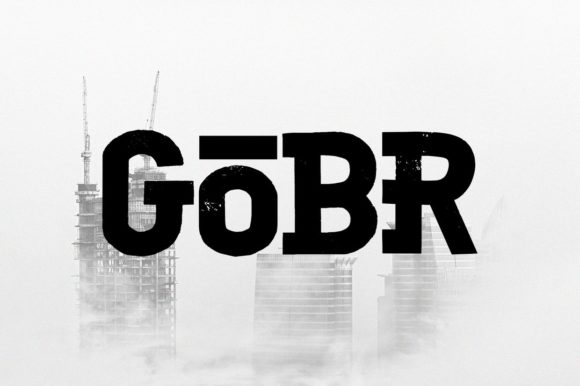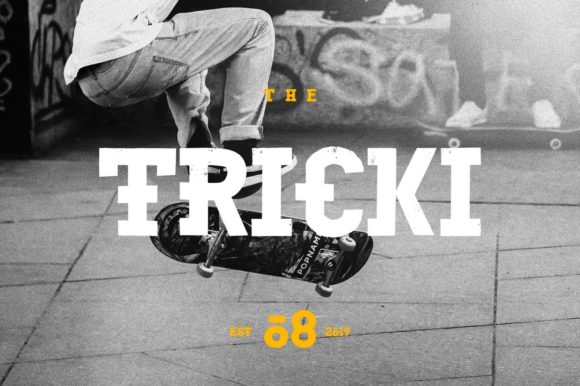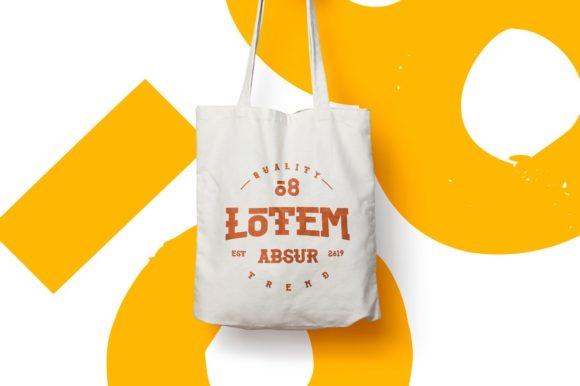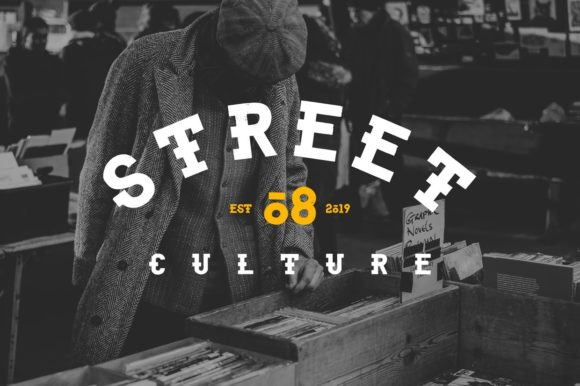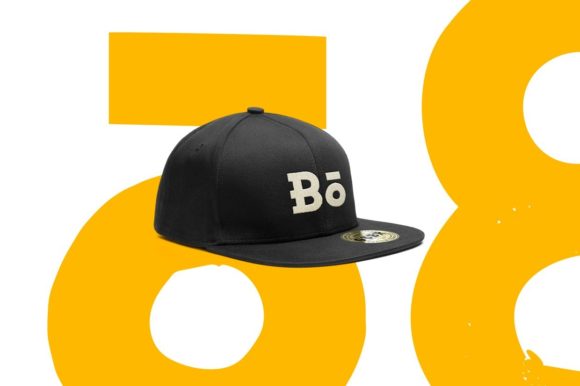
Gobr: A Bold and Solemn Slab Serif Font
Gobr is a bold and solemn slab serif font featuring a strong body with flexible, unsymmetrical arches. This font has a bit of noise, making it perfect for clothing brand designs with a street theme. Use it for projects related to street culture, skateboards, murals, hip hop, rap, and more.
Key Features of Gobr
- Bold Design: Offers a strong and confident look suitable for impactful designs.
- Slab Serif Structure: Features thick, rectangular serifs typical of slab serif fonts.
- Street Style: Ideal for designs that need a touch of urban culture.
- Unique Arches: Provides an unsymmetrical and dynamic appearance.
Ideal Uses for Gobr
Gobr’s unique characteristics make it particularly well-suited for:
- Logo design and branding
- Creative posters and advertisements
- Streetwear and apparel design
- Headlines and magazine layouts
- Book covers and title pages
- Web layouts and digital content
- Creative product packaging
When incorporating Gobr into your designs, consider these tips:
- Use for headlines or short blocks of text to showcase its bold style.
- Experiment with different sizes to highlight the font’s distinctive features.
- Consider pairing with simpler sans-serif fonts for body text to create contrast.
- Utilize its street style across various creative projects to enhance visual appeal.
Gobr is an excellent choice for designers looking to add a bold slab serif font to their typographic toolkit. Its ability to bring strength and style to various design projects makes it stand out in the world of typography. Whether you’re working on streetwear branding, creating layouts for magazines, or developing content that requires a touch of urban culture, Gobr offers the perfect blend of style and functionality.
Furthermore, Gobr’s unique design allows it to shine in various contexts. From vintage-inspired designs with a modern twist to more contemporary layouts that need a touch of uniqueness, this font can elevate your projects. Its striking yet functional style works particularly well in designs that require a thoughtful and engaging mood.
In conclusion, Gobr is a font that truly captures the essence of creativity and impact in typography. Its ability to work well in both minimalist projects and more elaborate layouts showcases its flexibility. For those looking to add a touch of unique charm to their work, Gobr can even enhance themed creations with its distinctive style. It’s the perfect choice for designers seeking to make a strong, stylish impact across a wide range of creative projects.